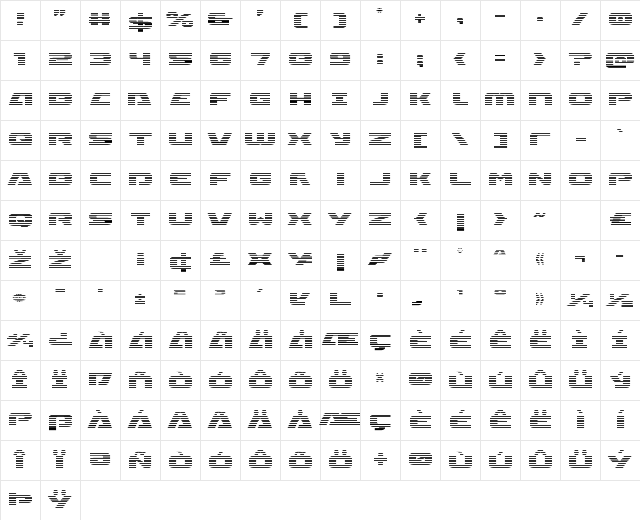
Iapetus Gradient Regular
Design Context for Iapetus Gradient
Iapetus Gradient is a composed and adaptable typeface that performs quietly and consistently across a wide range of design contexts.
Pro Tip: Use Iapetus Gradient in both headline and body roles to test its range before committing to a single application.